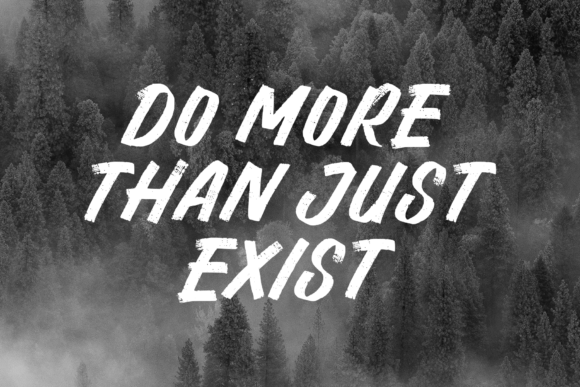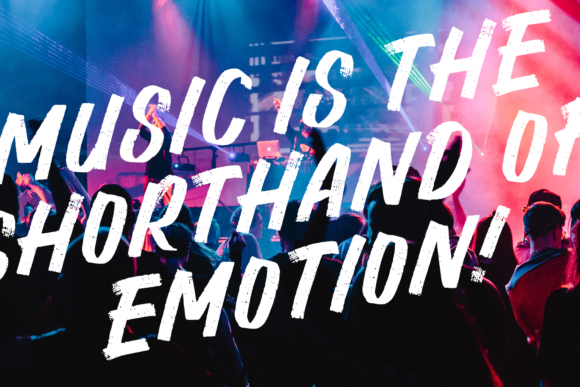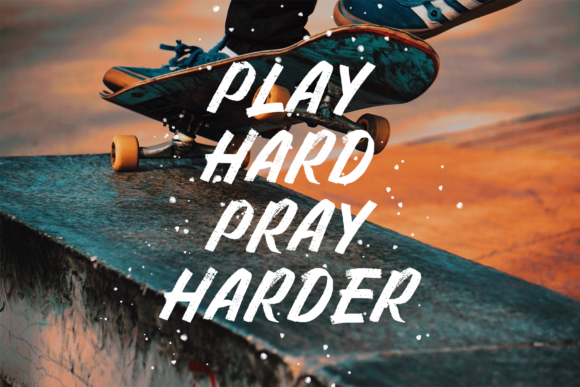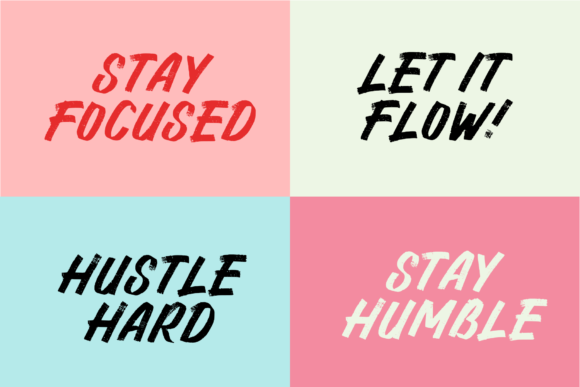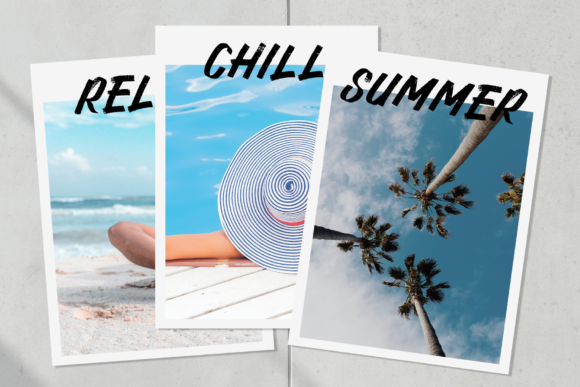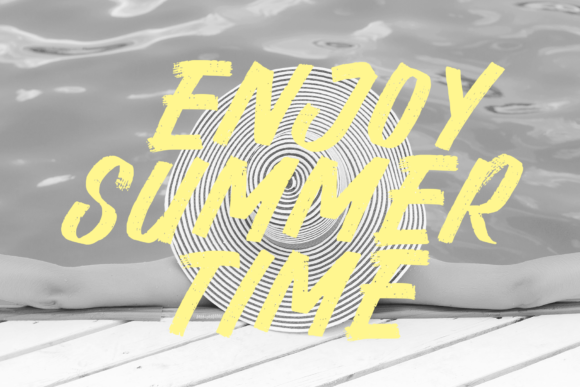
The Ultimate Display Font: Chrusher Stone
Have you ever been in the middle of a design project, and suddenly, you’re stuck on finding the perfect font? I recall a recent experience where I was working on a client’s branding project, and I just couldn’t find a font that captured the bold, edgy vibe they were looking for. That’s when I stumbled upon Chrusher Stone, a cool, bold, and paint-brushed display font that instantly elevated my design game.
An Honest Review of Chrusher Stone
• ✨ Unique Texture: Chrusher Stone’s paint-brushed texture gives it a distinctive, hand-crafted feel that’s perfect for making a statement.
• ✅ Bold and Legible: This font is incredibly bold and legible, even at smaller sizes, making it ideal for use on a variety of design materials.
• 💡 Versatile: Whether you’re working on a logo, poster, or social media graphic, Chrusher Stone can adapt to any design style or topic.
While Chrusher Stone is an amazing font, there are a few things to keep in mind:
• 🤔 Limited Use Cases: Due to its bold and textured nature, Chrusher Stone might not be the best choice for body text or smaller font sizes.
• ⚠️ Glyph Support: Some users have reported issues with certain glyphs or special characters, so be sure to test the font thoroughly before using it in a project.
The Backstory Behind Chrusher Stone
Chrusher Stone was designed by a team of creatives who wanted to create a font that captured the raw energy and emotion of street art. Inspired by graffiti and urban landscapes, they crafted a font that’s both bold and beautiful. The result is a font that’s perfect for designers, crafters, and creative hobbyists looking to add a touch of edginess to their work.
Q: Is Chrusher Stone suitable for body text?
A: While Chrusher Stone is an amazing font, it’s not ideal for body text due to its bold and textured nature. It’s best used for headlines, titles, or emphasis.
Q: Does Chrusher Stone support OpenType features?
A: Yes, Chrusher Stone supports OpenType features, including stylistic alternates and glyphs. Experiment with these features to add more visual interest to your designs.